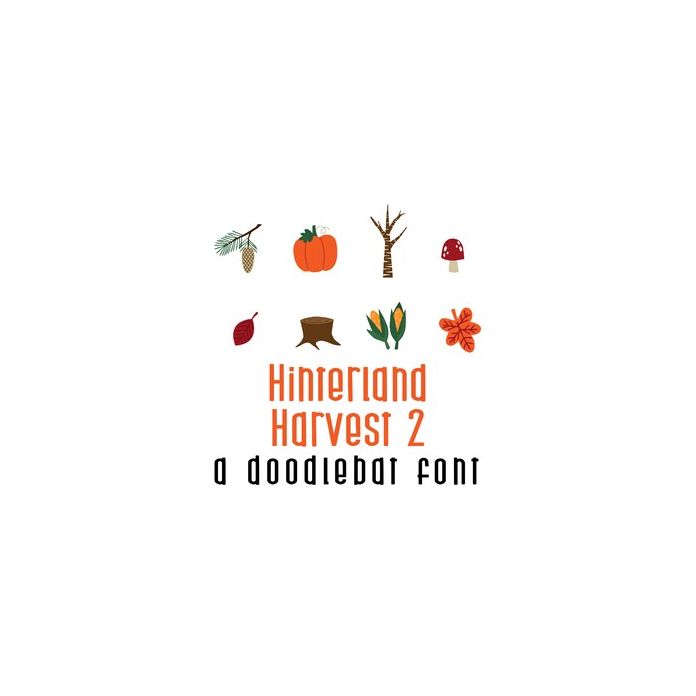
This adorable full-color doodlebat font features 26 fall and bountiful harvest images. Perfect for cards, crafts, gifts, decor, scrapbook pages, planner stickers, and more!